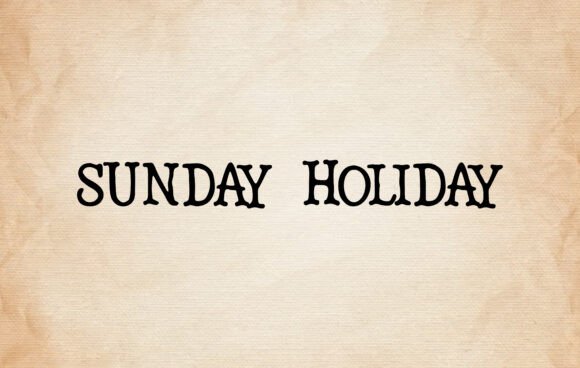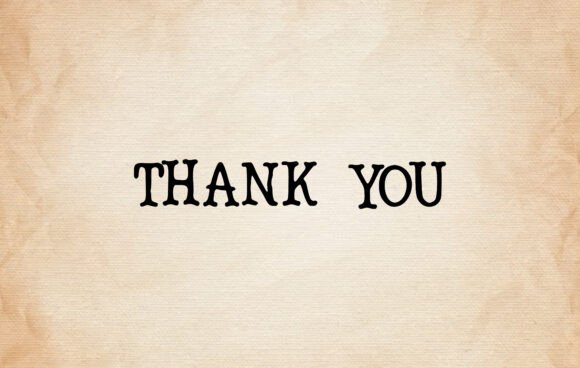
Glimpse Font: Elevate Your Creative Projects with Style and Legibility
Are you tired of using the same old fonts for your creative projects? Look no further than the Glimpse Font, expertly designed to be a true favorite among designers and crafters. With its perfect blend of style, legibility, and versatility, this font has the potential to take your ideas to the highest level.
What Makes Glimpse Font Stand Out?
The Glimpse Font is legible and looks great as a title or body text, making it perfect for a wide range of applications. Whether you’re working on magazine headlines, t-shirt designs, social media graphics, branding materials, wedding invitations, or cards, this font is sure to impress. Its clean and modern design ensures that your message is conveyed with clarity and sophistication.
Key Features of Glimpse Font
- Legibility: The Glimpse Font is designed to be easy to read, making it perfect for body text or longer blocks of content.
- Versatility: With its clean and modern design, this font can be used for a wide range of applications, from titles and headlines to social media graphics and branding materials.
- Style: The Glimpse Font has a unique and stylish aesthetic that is sure to elevate your creative projects.
Whether you’re a professional designer or a crafter looking to add a personal touch to your projects, the Glimpse Font is a great choice. Its ease of use and flexibility make it perfect for a variety of projects, including:
- Magazine Headlines: Use the Glimpse Font to create eye-catching headlines that grab attention.
- T-Shirt Designs: Add a stylish touch to your t-shirt designs with this modern and legible font.
- Social Media Graphics: Use the Glimpse Font to create engaging social media graphics that stand out.
- Branding Materials: Establish your brand identity with a consistent and professional look using the Glimpse Font.
- Wedding Invitations: Add a touch of elegance to your wedding invitations with this beautiful font.
- Cards: Use the Glimpse Font to create personalized and stylish cards for any occasion.
Tips for Using Glimpse Font
To get the most out of the Glimpse Font, here are a few tips:
- Experiment with Sizes: The Glimpse Font looks great in a variety of sizes, from small body text to large headlines.
- Play with Colors: Try out different colors to see how they affect the overall look and feel of the font.
- Mix and Match: Combine the Glimpse Font with other fonts to create a unique and interesting look.
The Glimpse Font is a versatile and stylish font that is perfect for designers and crafters looking to elevate their creative projects. With its legibility, versatility, and unique aesthetic, this font is sure to become a favorite in your collection. So why wait? Try the Glimpse Font today and take your creative ideas to the highest level!